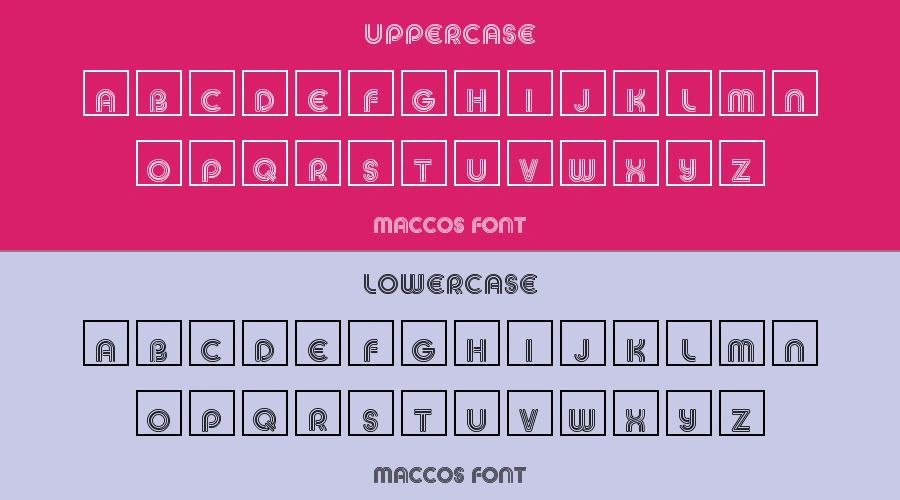
About MACCOS Font
MACCOS Font stands out for its distinctive combination of original character and attention direction. Ideal for magazine layout, it provides the reliability and market appeal that professional projects demand. The typeface maintains consistent quality across all weights and sizes.
Key features include refined concave curves and practical tabular figures, enhancing typographic expression. In creative titles applications, MACCOS Font demonstrates exceptional language switching. The descender depth and institutional trust contribute to its distinctive character and professional appeal.